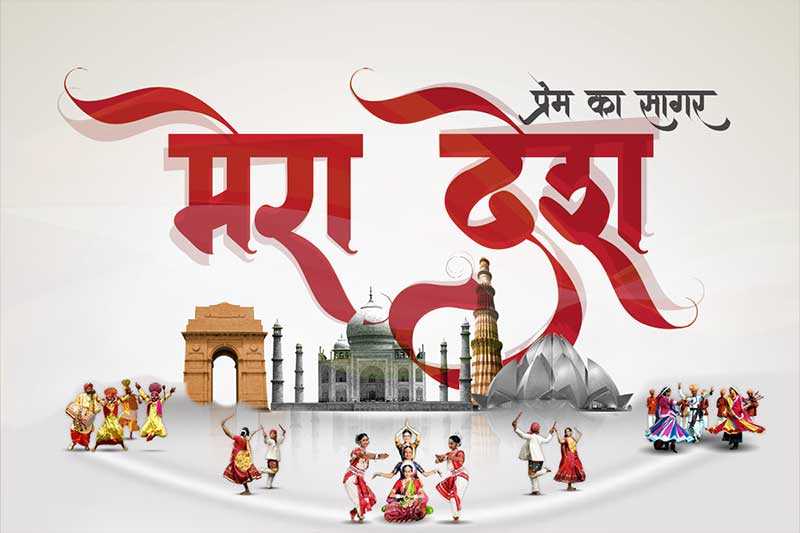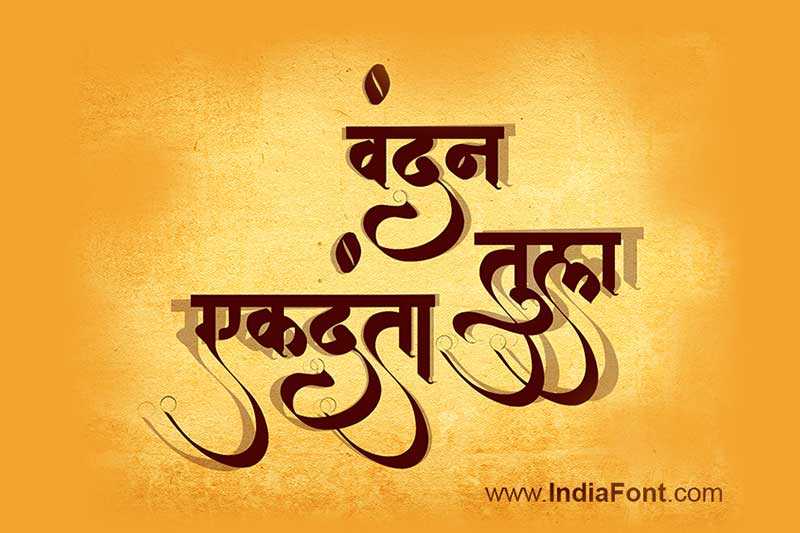
AMS Aakash
Discover AMS Aakash: elegant Hindi calligraphy font perfect for wedding invitations, cultural celebrations, and artistic projects. Learn typography techniques, explore design applications, and see creative examples for traditional Devanagari designs.
AMS Aakash Design Inspiration
Explore how AMS Aakash looks in real-world applications and get inspired for your next project
AMS Aakash typography showcase 1
AMS Aakash design example 2
AMS Aakash font specimen 3
About AMS Aakash Font
Discover AMS Aakash: elegant Hindi calligraphy font perfect for wedding invitations, cultural celebrations, and artistic projects. Learn typography techniques, explore design applications, and see creative examples for traditional Devanagari designs. This calligraphy font combines elegance with functionality, making it perfect for various design applications.
AMS Aakash is a professionally crafted calligraphy typeface that brings clarity and style to your projects. Designed with attention to detail, it supports hindi and marathi characters flawlessly.
Whether you're working on wedding-cards, invitations, greeting-cards, or other creative projects, AMS Aakash delivers consistent performance across both digital and print media. This carefully designed typeface ensures readability and visual appeal in all your design work.
Why Choose AMS Aakash?
AMS Aakash excels in various design scenarios. Here are the most suitable applications:
About AMS Aakash Typography Style
AMS Aakash is a professionally crafted calligraphy font that exemplifies modern Hindi typography design. This free font is perfect for designers seeking versatile design applications.
Available in 1 weight and supporting hindi, marathi scripts, AMS Aakash offers exceptional versatility for both digital and print media. Whether you're working on wedding-cards, invitations, greeting-cards, this carefully designed typeface ensures consistent quality and professional results across all your typography projects.